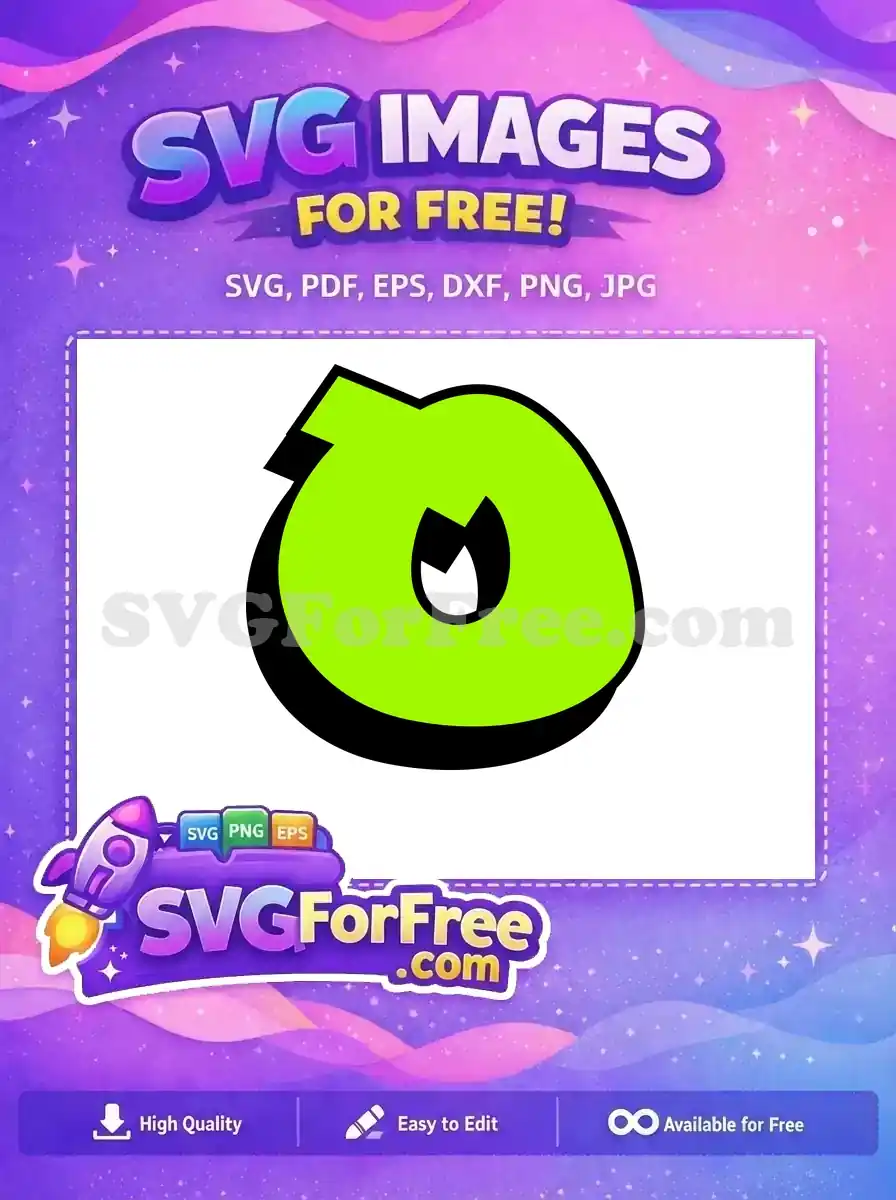
Free Lime Green Font Free Graffiti Letter O Free SVG – Instant Download
3D style green letter O with shadow, a free bold vector.
Free Lime Green Font Free Graffiti Letter O Free SVG